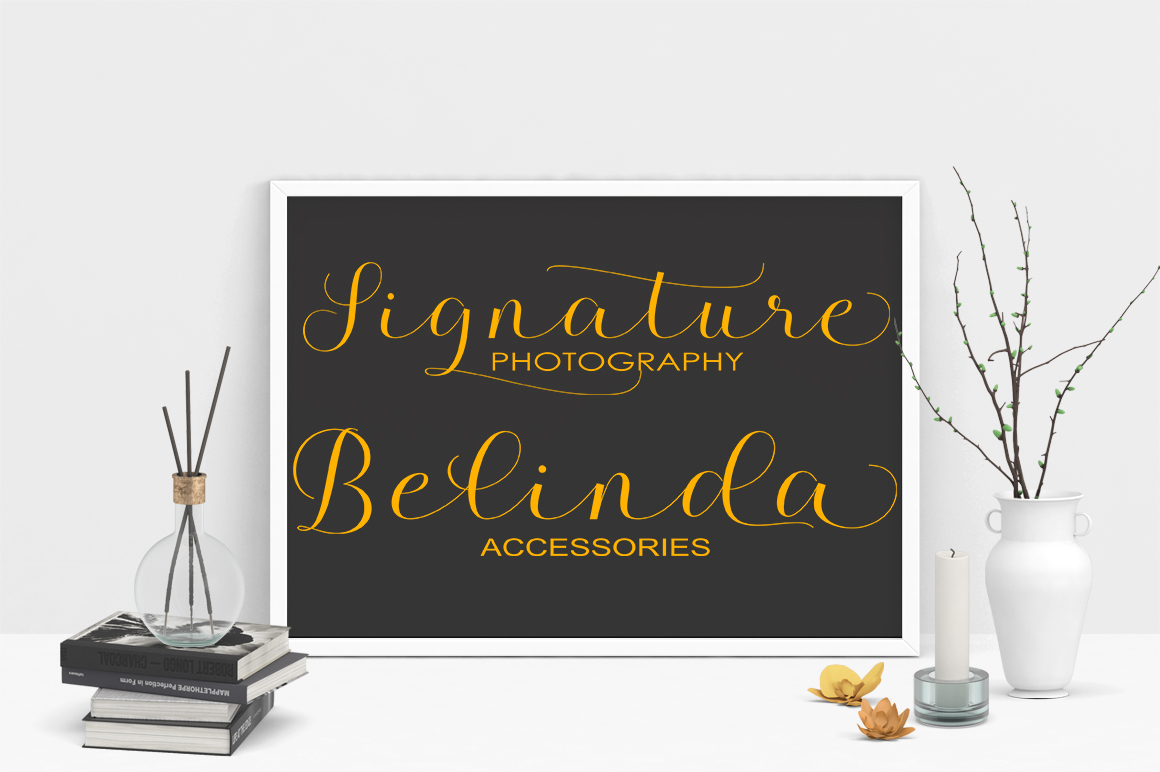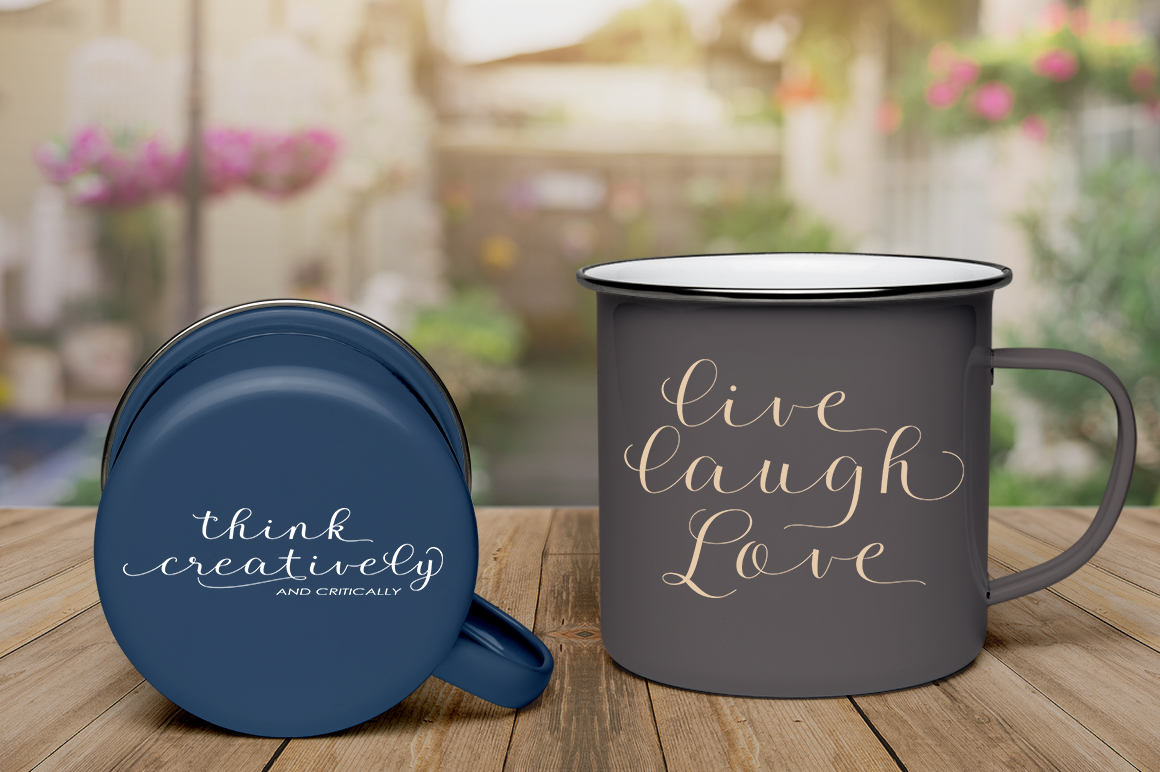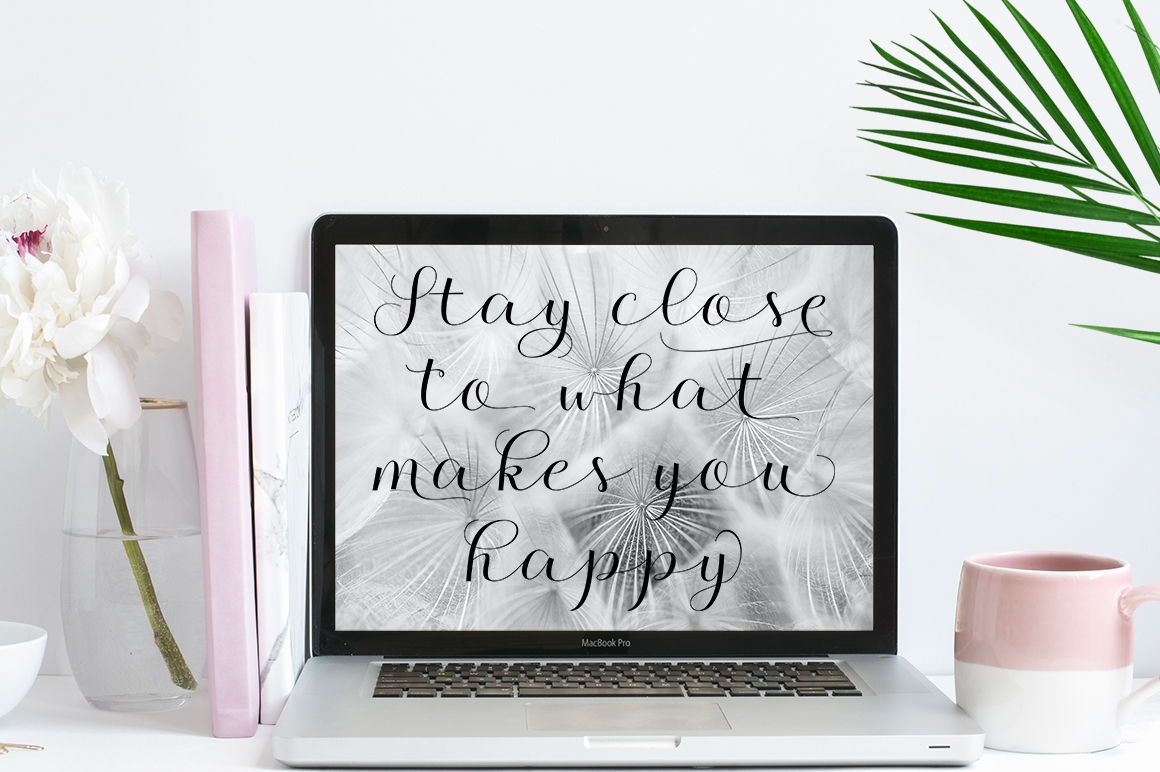
Introduction to Kalisha Font
Have you ever stared at a blank page, feeling the weight of a creative project on your shoulders? You’re searching for that perfect font to bring your vision to life. For many designers, this is a familiar moment – a moment of truth when the right design resource can make all the difference.
Enter Kalisha Font, a modern calligraphy style design that’s about to become your new go-to. With its stunning swashes and elegant lines, Kalisha Font is a high-quality addition to any design project. Whether you’re working on a wedding invitation or a branding campaign, this versatile font is sure to elevate your work. And the best part? It comes in two weights – Regular and Bold – giving you even more creative freedom.
Key Features of Kalisha Font
- High-quality, professional font suitable for creative projects and designs
- Designed to be highly legible and versatile, making it suitable for a wide range of creative projects
- Perfect for use in logos, branding materials, and other design elements where a unique and creative touch is needed
Honest Review: Kalisha Font
As a designer, I’m always on the lookout for high-quality fonts that can elevate my creative projects. I recently came across the Kalisha Font, and I must say, it’s a great addition to my design resource collection.
Here’s what works well: ✨ The font is incredibly versatile, with a range of weights and styles that make it perfect for both body text and headings. The transparent background is a nice touch, allowing for easy layering and compositing. Plus, the free download option is a huge bonus, making it accessible to designers of all levels.
- High-quality design with a range of weights and styles
- Transparent background for easy layering and compositing
That being said, there are some limitations to keep in mind: ⚠️ The font may not be suitable for small text sizes, and the transparency can sometimes cause issues with readability. Additionally, the font is not as extensive as some other popular fonts on the market.
Overall, I’m really impressed with the Kalisha Font. While it may not be perfect, it’s a great resource for designers looking for a high-quality, free font that’s perfect for creative projects.
Tips for Getting the Most Out of Kalisha Font
Use Kalisha Font on a high quality, transparent background to make it stand out in your design. You can also experiment with different font sizes, colors, and combinations to create unique and eye-catching designs.